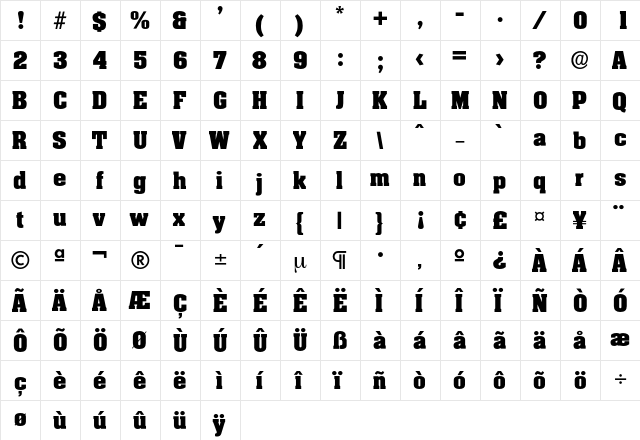
Nijmwegen Regular
Design Context for Nijmwegen Typeface
Nijmwegen is a composed and adaptable typeface that performs quietly and consistently across a wide range of design contexts.